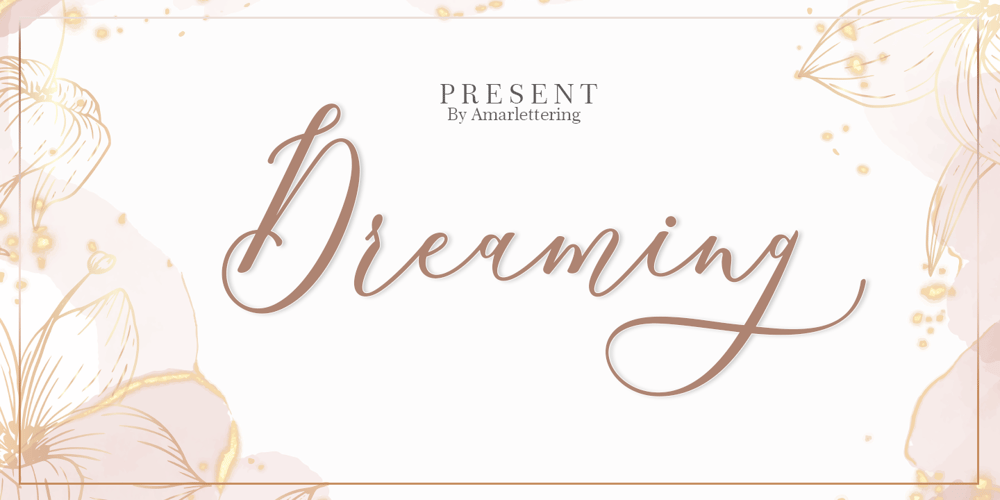
Dreaming Font Family was designed by Kamaruddin Kamaruddin, Amar Lettering and published by Amarlettering. Dreaming contains 1 styles and family package options. Dreaming is a dazzling script font. This font is neatly crafted and highly detailed. Whatever the topic, this font will be a wonderful asset to your font library, as it has the potential to enhance any creation.